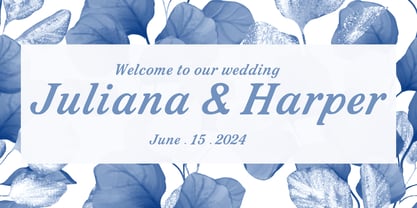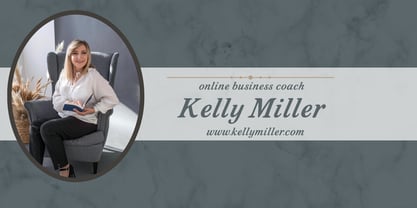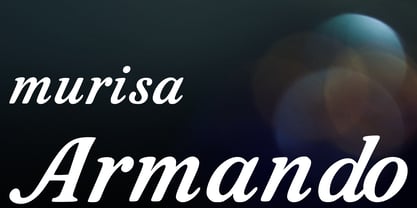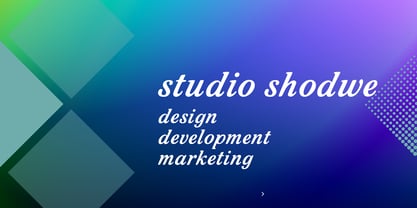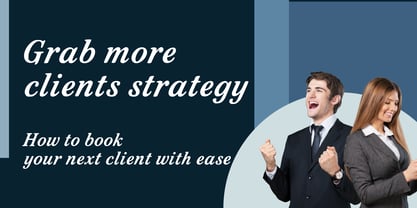
Murisa Armando
The Murisa Armando Font Family was designed by Lili Sadili and published by Murisa Studio. Murisa Armando contains 1 styles. More about this family
🎨 Murisa Armando — Elegance in Motion
Step into a world where classic charm meets expressive flair. Murisa Armando is a refined serif italic typeface that dances across the page with graceful curves and confident strokes. Designed for creators who crave sophistication without sacrificing personality, this font brings timeless beauty to modern design.
Why Designers Love It
• Stylish Italics: Each letter leans with intention, adding rhythm and elegance to your text.
• Distinctive Character: From bold uppercase forms to fluid lowercase shapes, every glyph is crafted with care.
• Versatile Appeal: Perfect for branding, editorial layouts, packaging, and high-impact headlines.
• 🌍 Eastern European Ready: Full support for Eastern European languages ensures your message travels far and wide.
🖋️ Whether you're designing a luxury label, a poetic book cover, or a standout social media post, Murisa Armando delivers the refined edge your project deserves